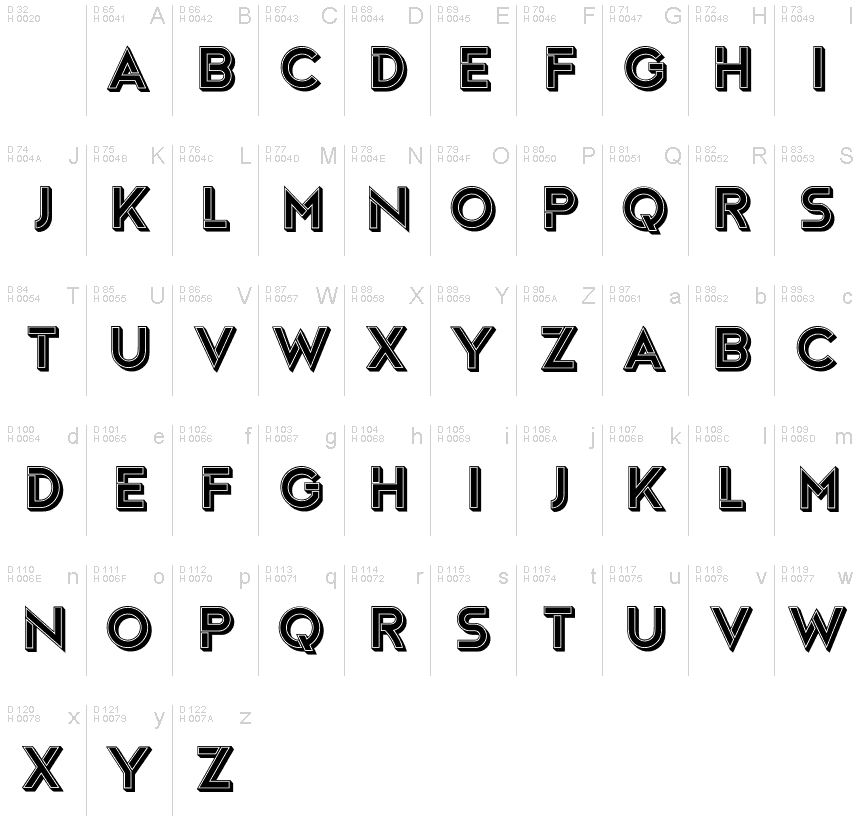
Russian Literature Regular
Russian Literature, crafted by renowned designer Vladimir Nikolic, is a captivating display font that combines modernity with the elegance of classic literature.
Its sleek sans serif style and embossed details make it perfect for titles, headings, and book covers. With its semi-expanded width, this font exudes confidence and sophistication. Russian Literature adds a touch of refinement to projects in need of a bold statement - from fashion magazines to cultural events posters.
Let it transport your audience to the world of great literary works with its distinctive charm.